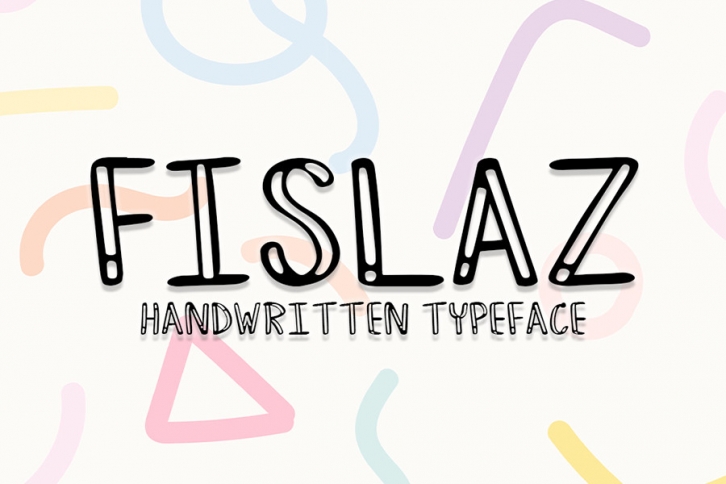
Fislaz is an eye-catching handwritten font perfect for adding a personal touch to any design project. With its distinctive look, it adds a touch of warmth and authenticity to your messages and designs.